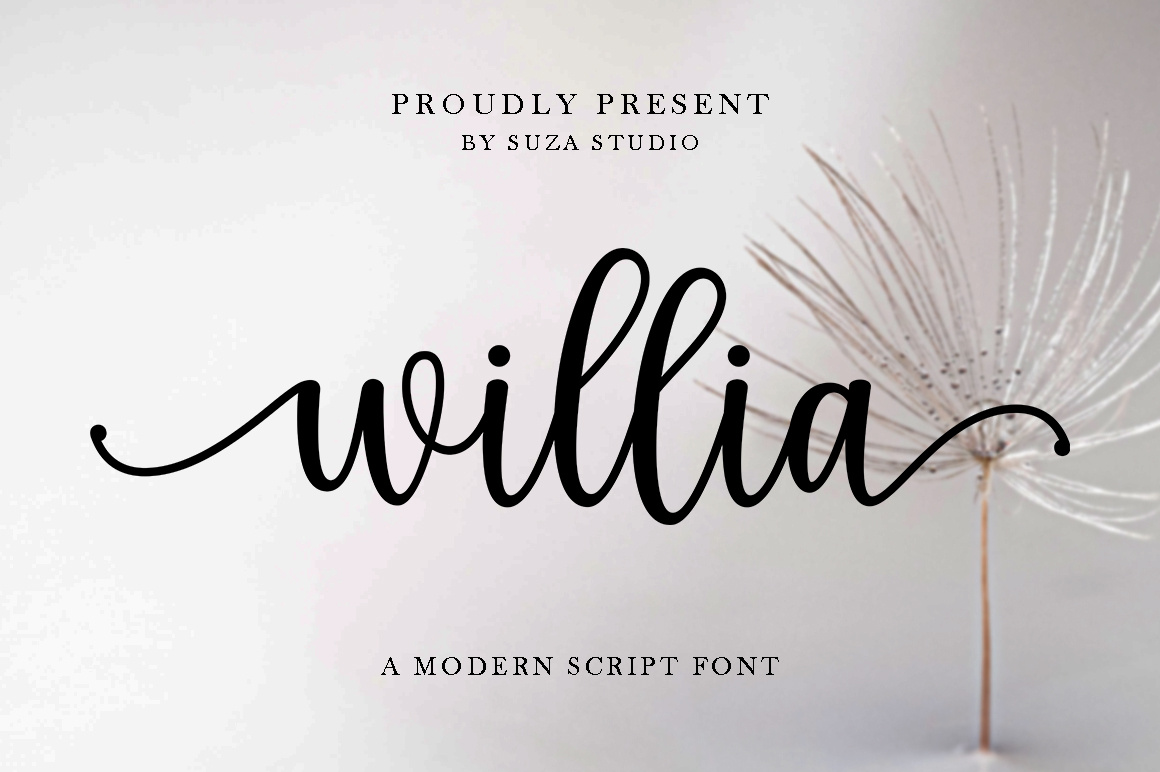
Willia A Modern Script Font
Introducing the calligraphy script font, Willia a beautiful and elegant script font designed for signature logos, wedding invitations, custom branding, websites, social media and more! Right on Valentine's Day, it's perfect for a couple's name or anything that needs a soft and romantic touch.